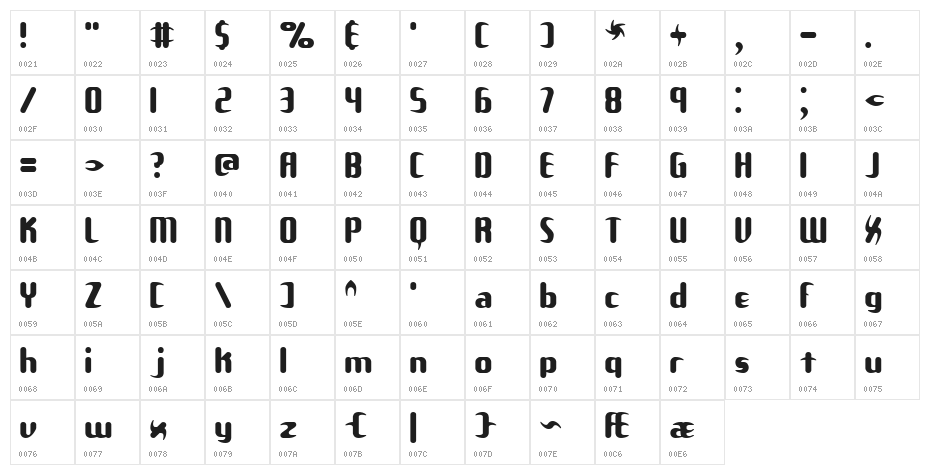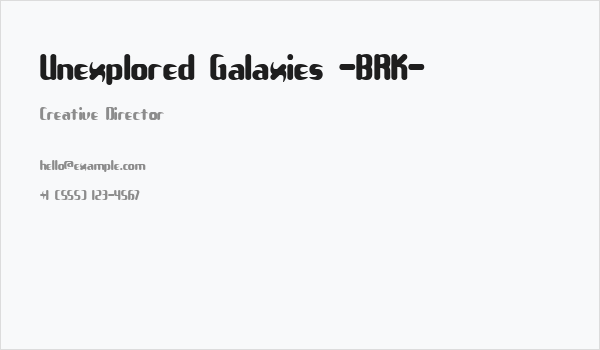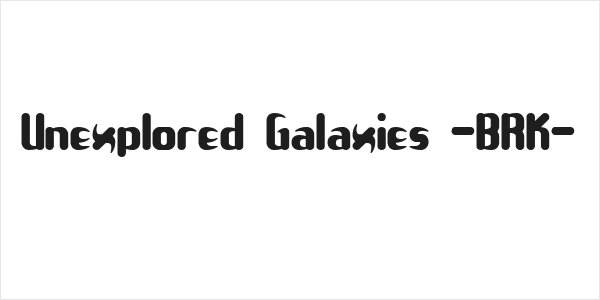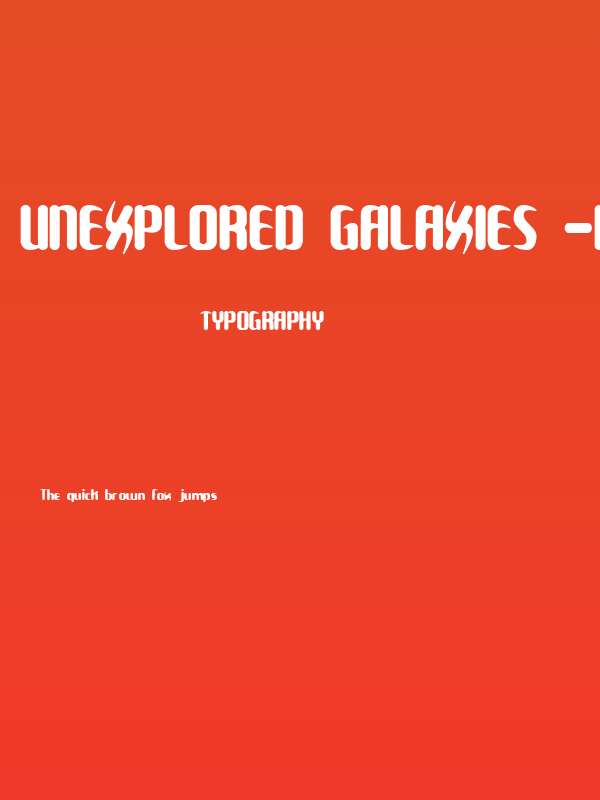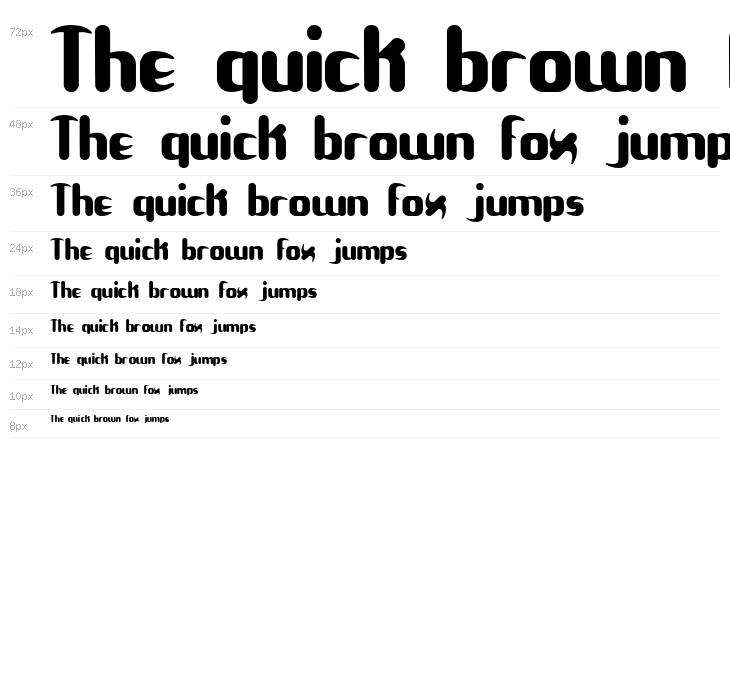
Unexplored Galaxies -BRK- Font
Unexplored Galaxies -BRK- Description
This font features a bold and modern design with a unique, futuristic flair. The characters are rounded and smooth, with a consistent thickness throughout, giving it a cohesive and polished look. The uppercase and lowercase letters maintain a uniform style, while the numbers and special characters are crafted to match the overall aesthetic. The font's distinctiveness is highlighted by its creative use of curves and angles, making it stand out in any design project. Its playful yet sophisticated appearance makes it versatile for various applications.
| Proposed Projects | Ideal for sci-fi themed projects, branding, posters, and digital media. |